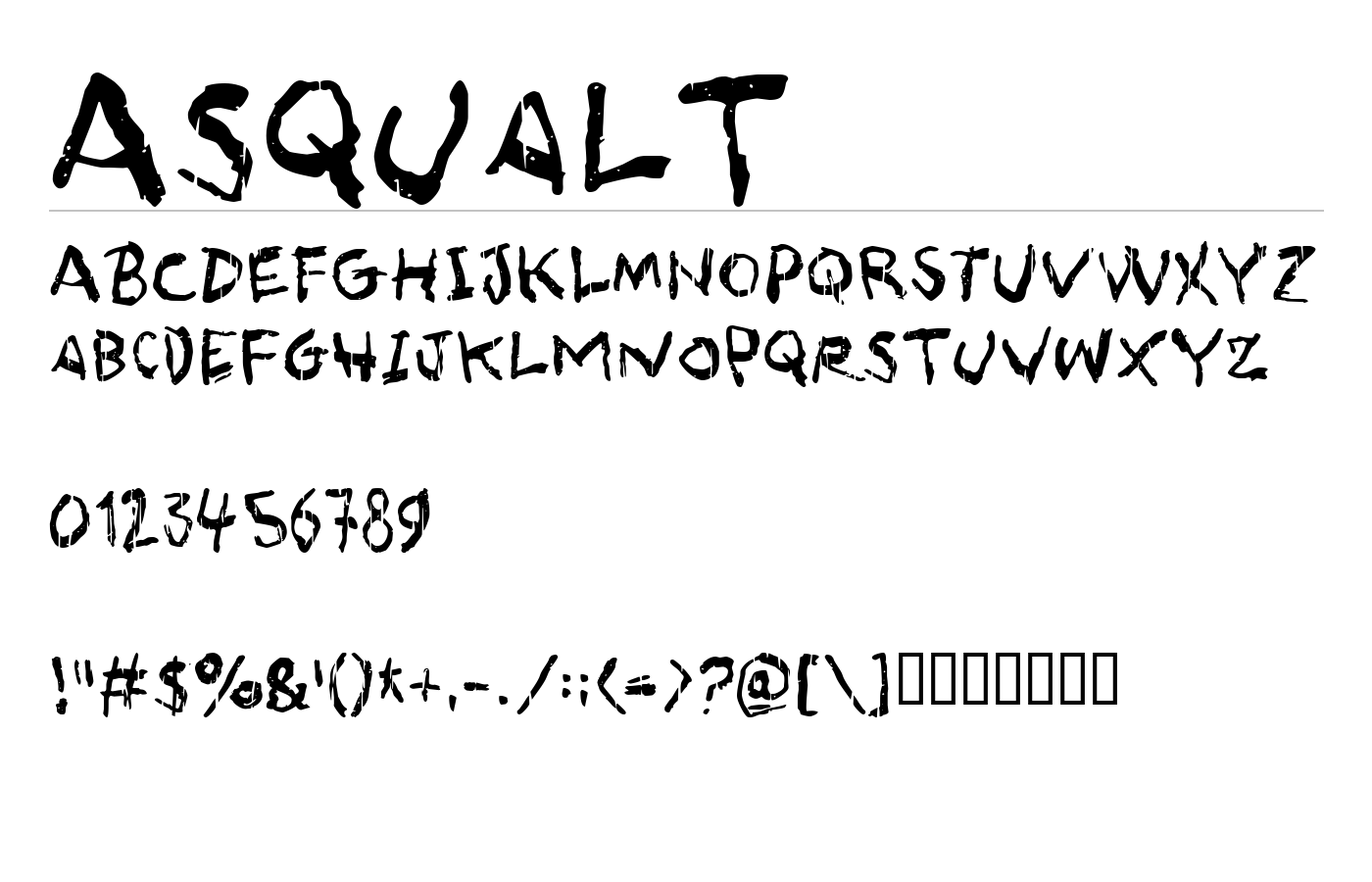
Asqualt is an expressive, hand-drawn sans serif font with a rough, textured appearance that gives it a raw and energetic feel. Its irregular, jagged letterforms and high contrast strokes make it ideal for creative, edgy designs that want to convey personality and spontaneity. This font works well for posters, logos, and artistic projects where a bold, unconventional look is desired.
Asqualt Font